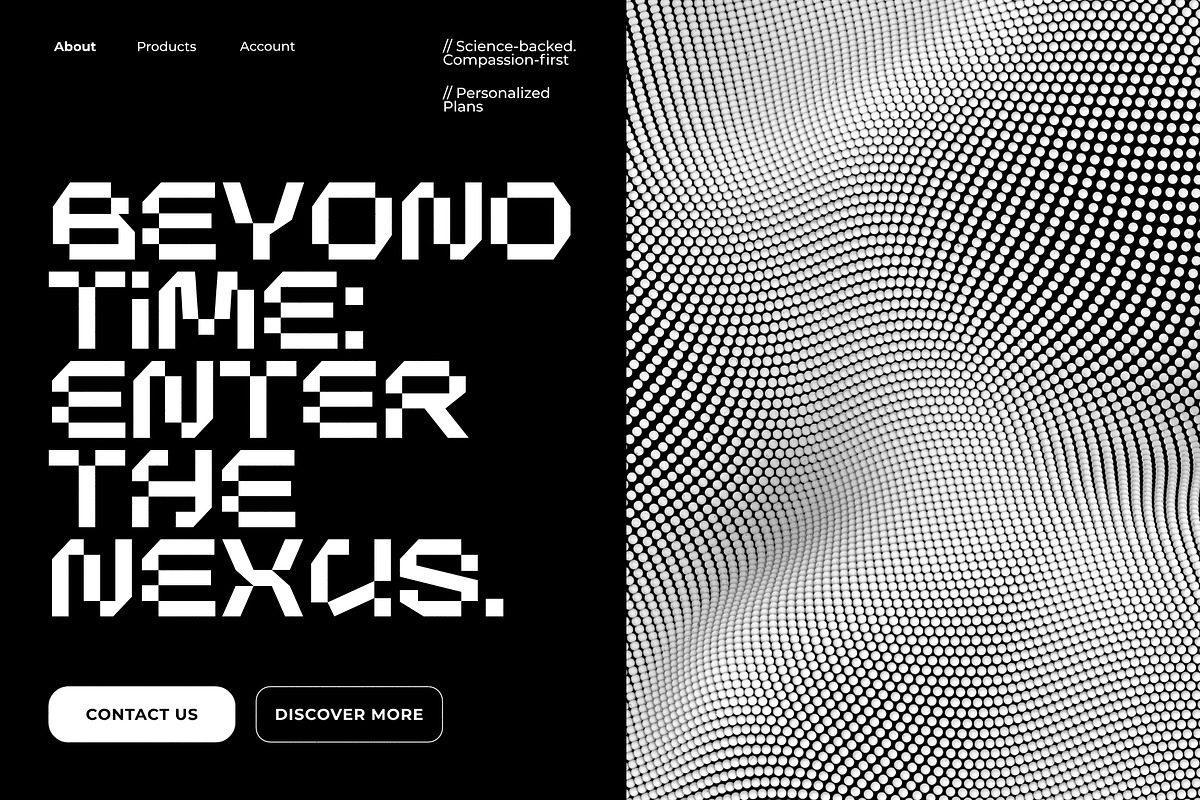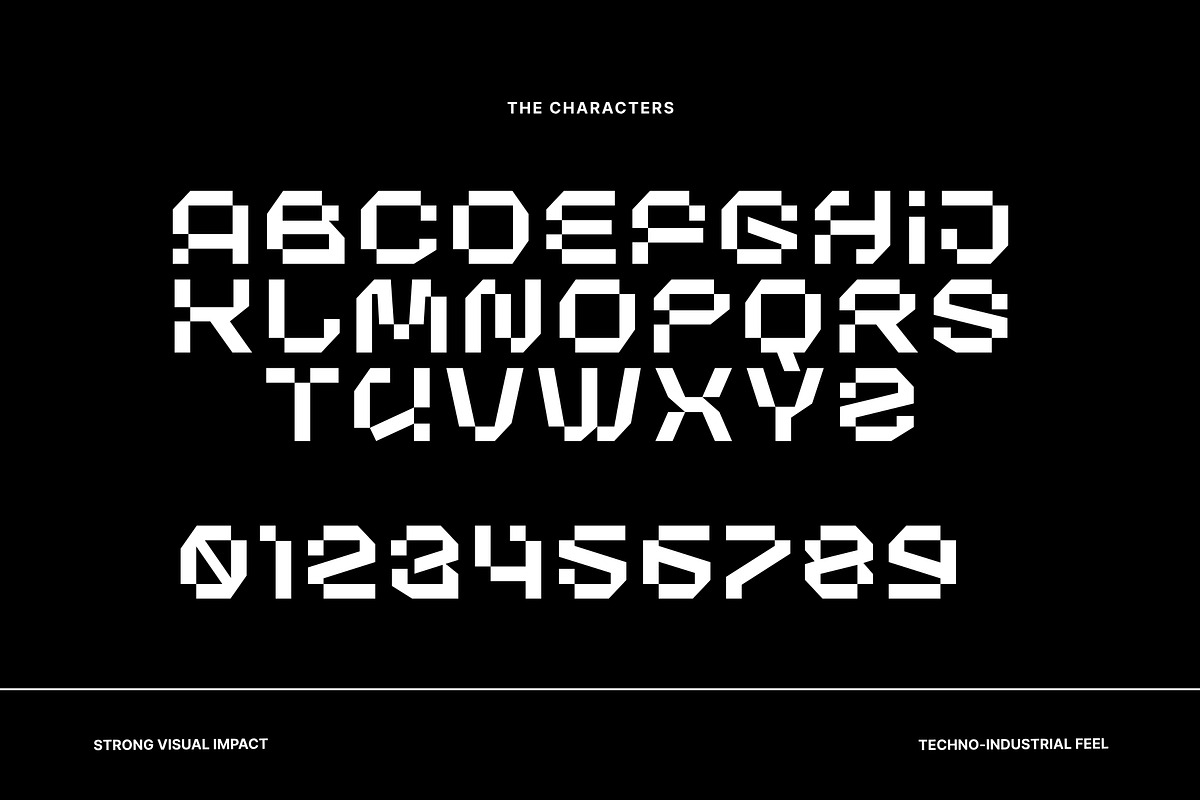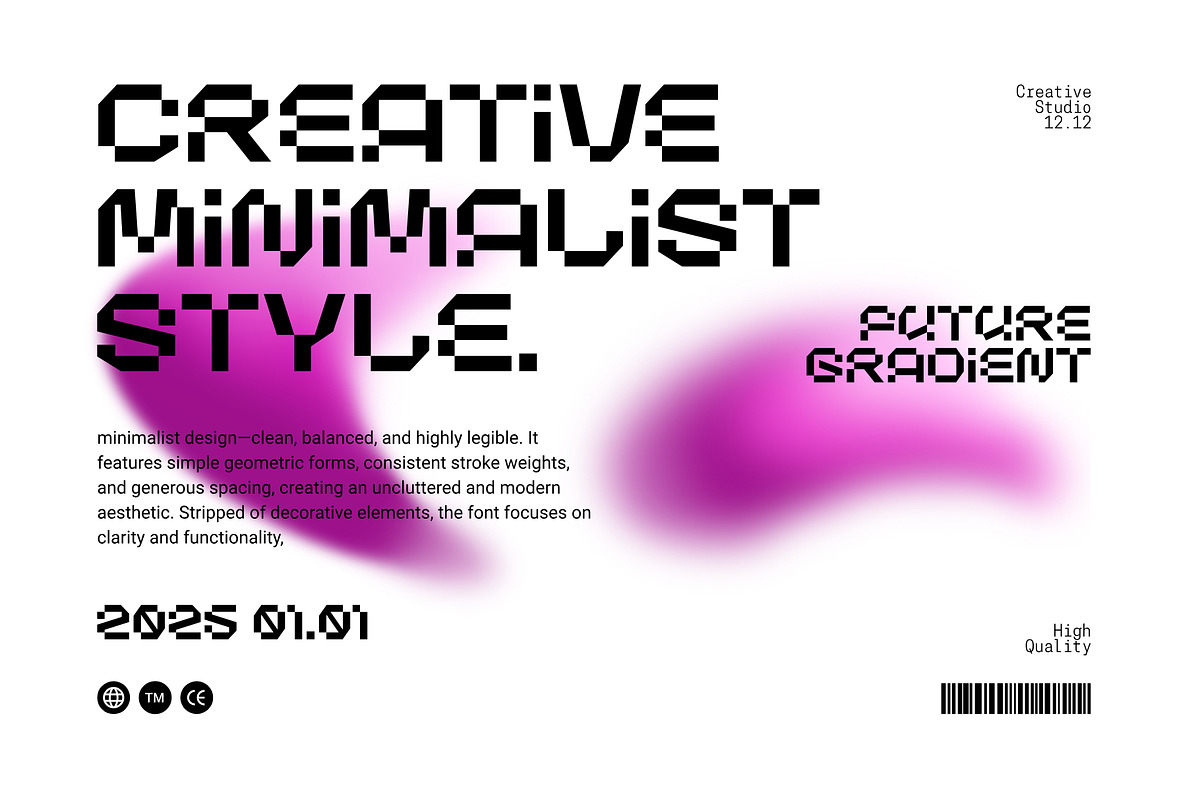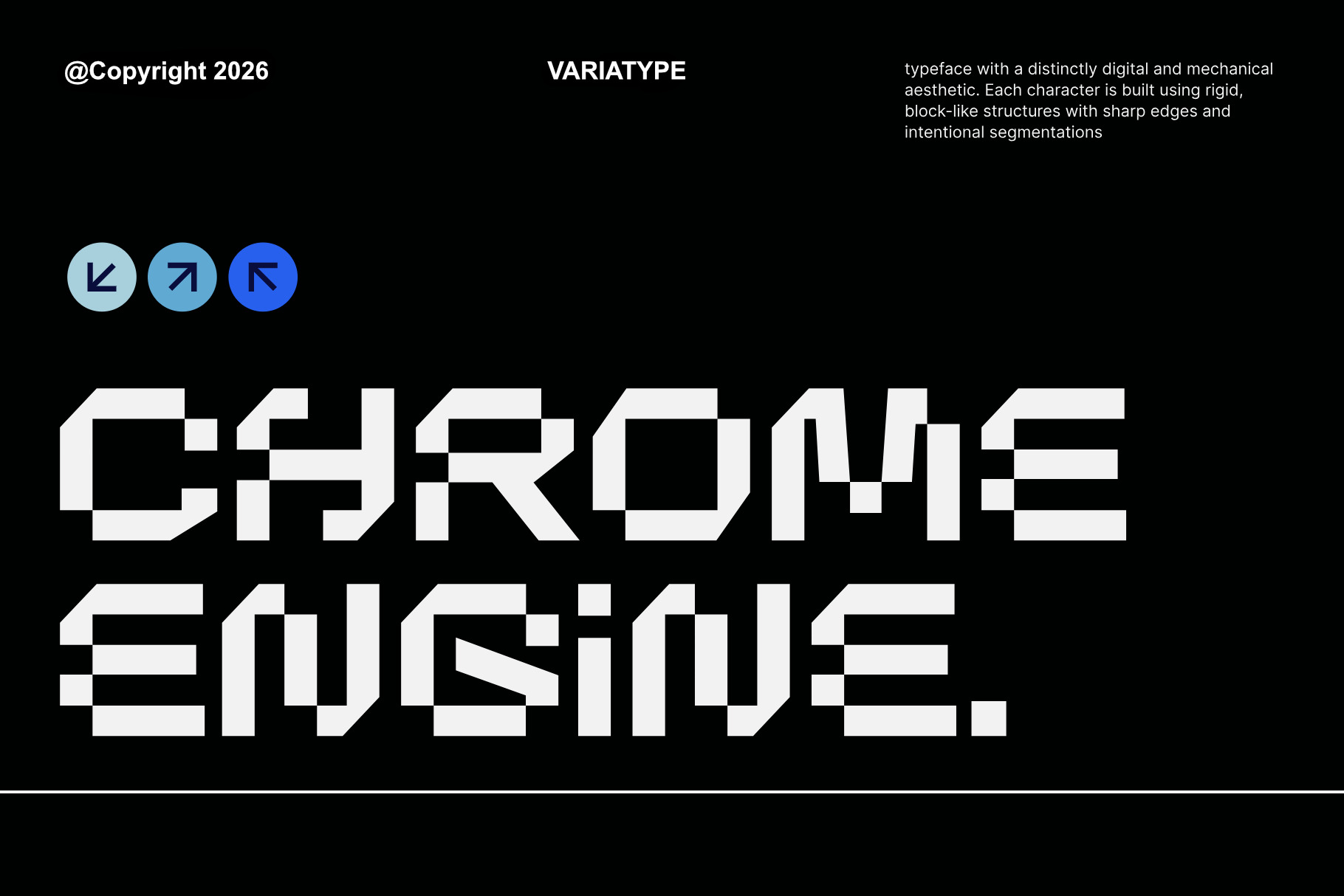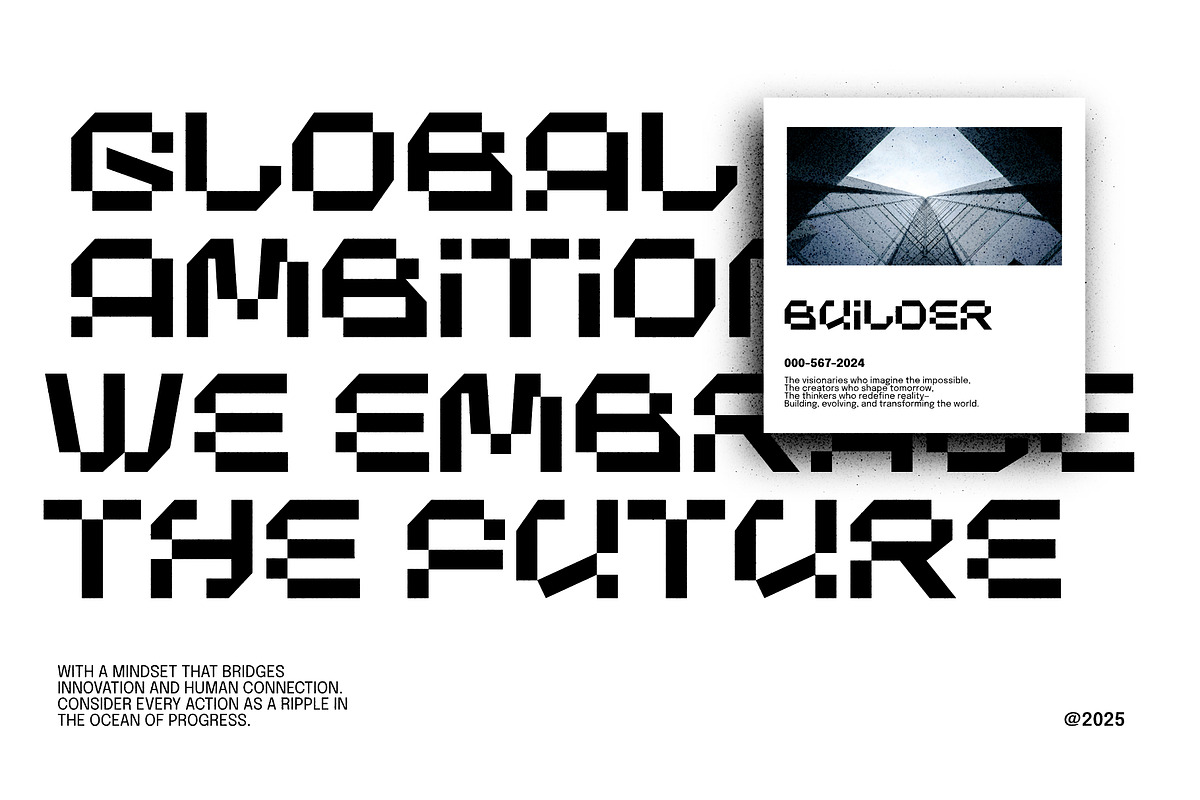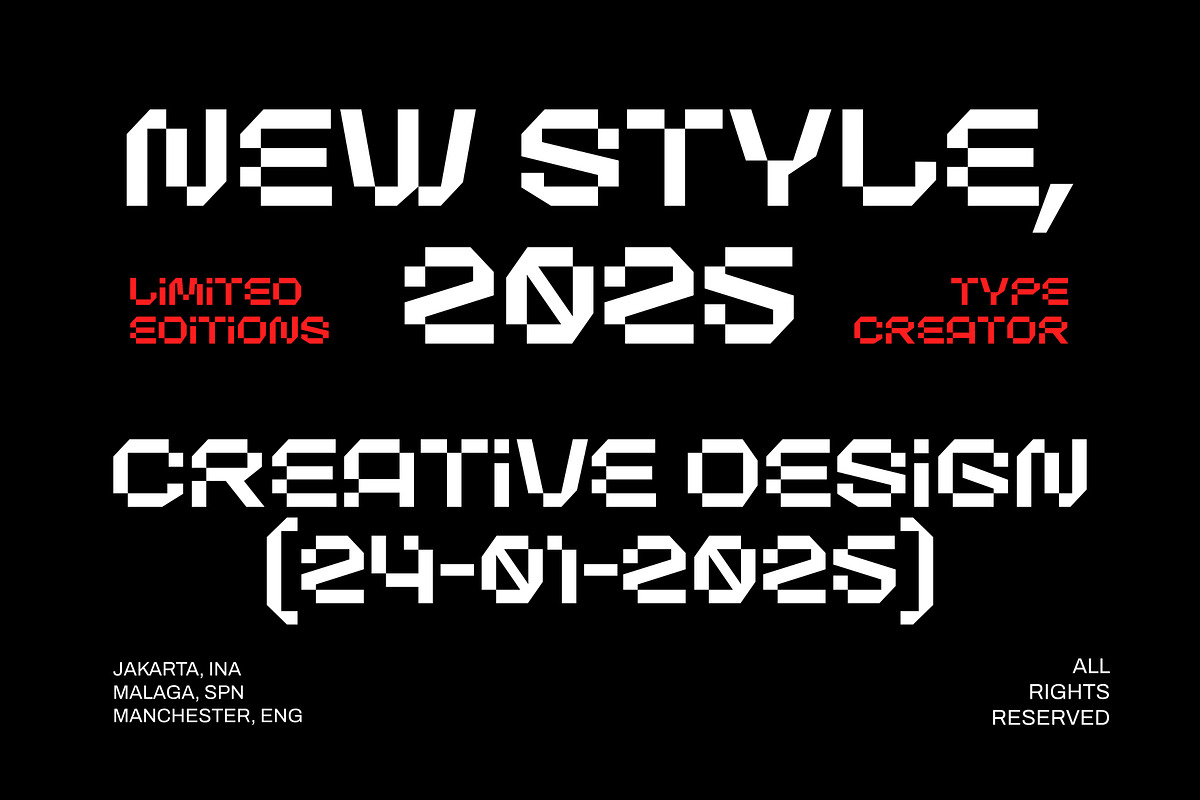
Chrome Engine - Futuristic Font
Chrome Engine is a futuristic display typeface inspired by digital technology, industrial machinery, and future aesthetics. Built with bold geometric forms, sharp angular cuts, and segmented construction, every character delivers a powerful mechanical presence while maintaining excellent readability. Designed for creators who want to make a bold statement, Chrome Engine is perfect for titles, sci-fi branding, technology products, sports, posters, UI concepts, covers, apparel, packaging, and modern visual identities. Its modular construction creates a strong robotic personality, making it an excellent choice for projects that demand innovation, precision, and a distinctly futuristic look.